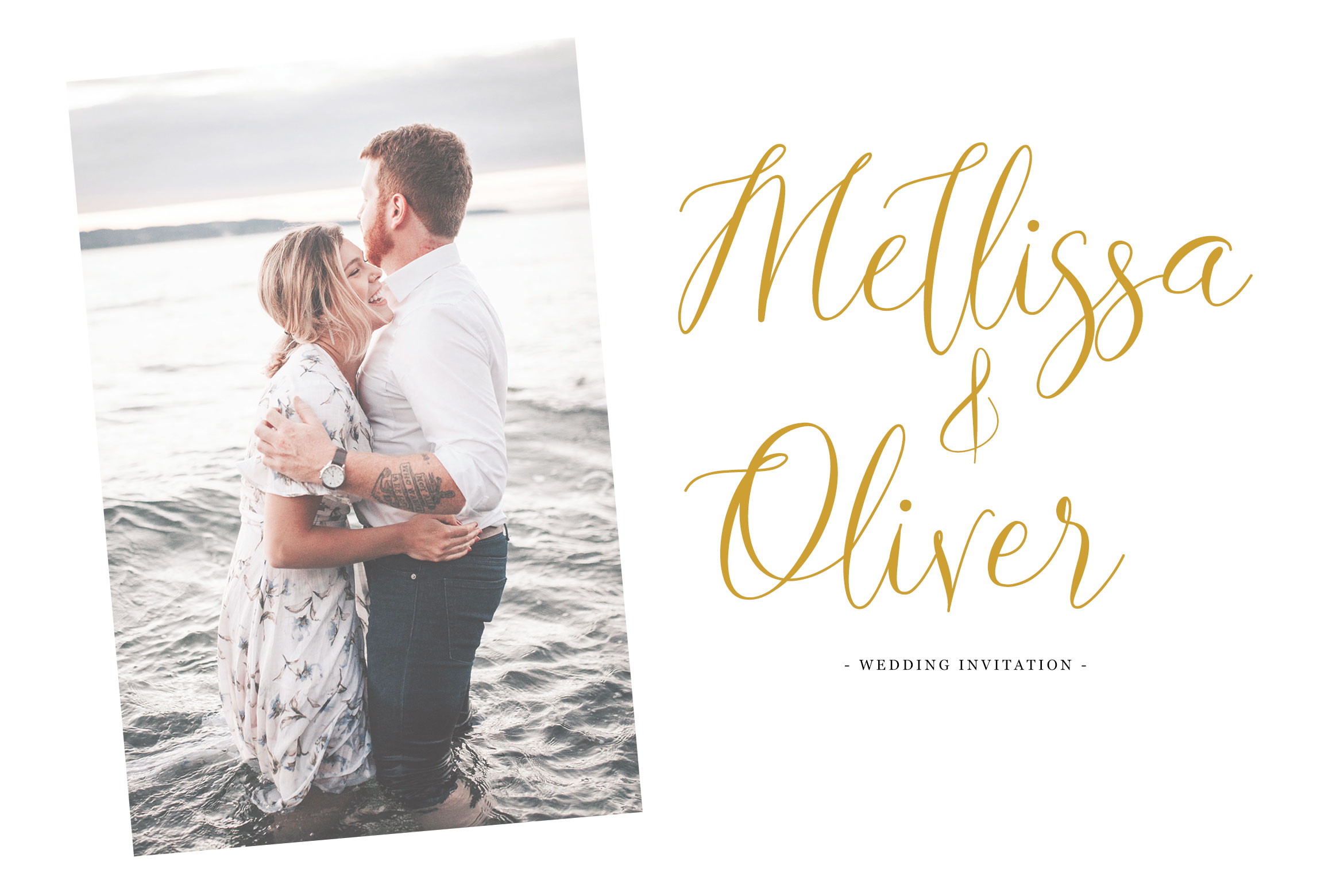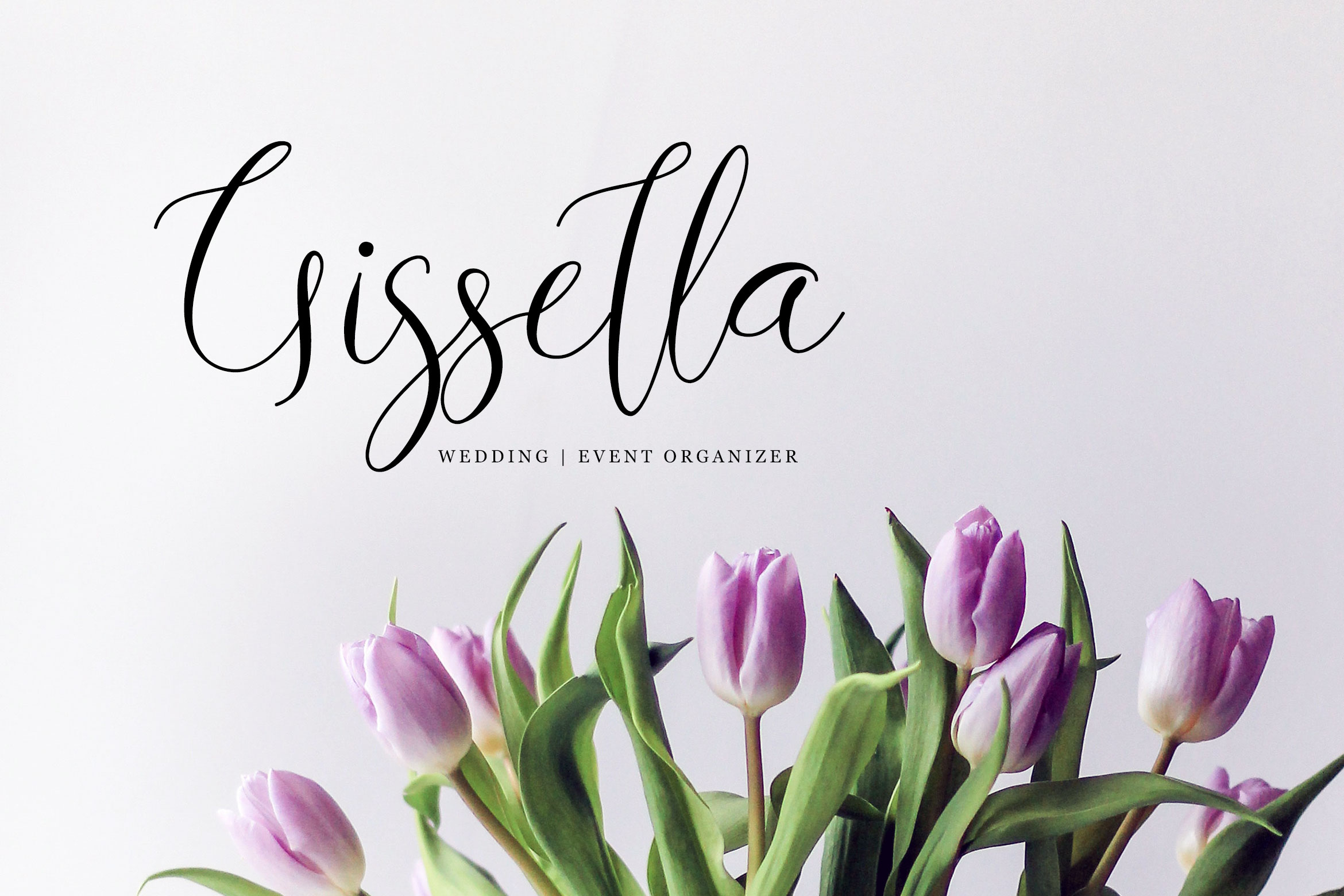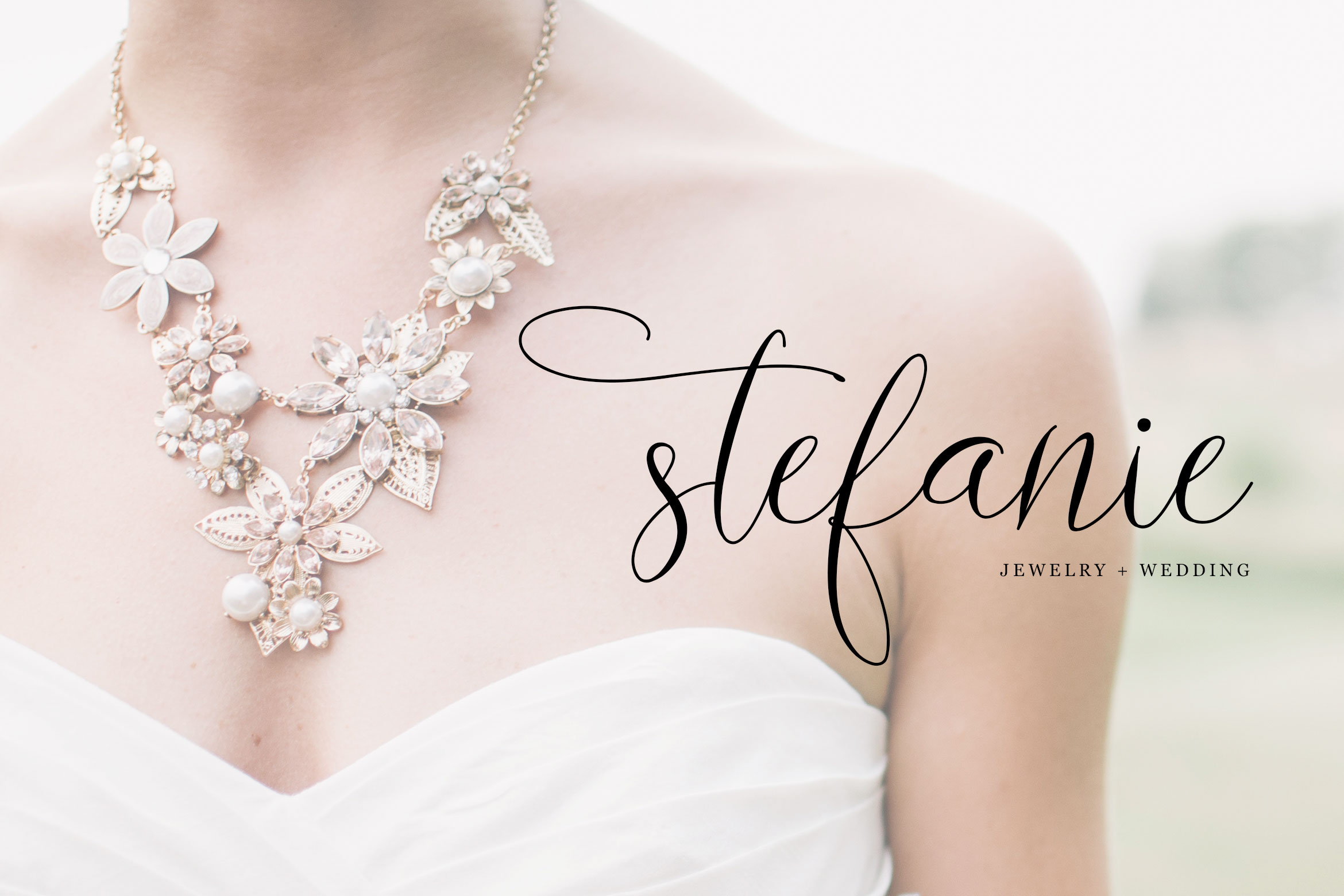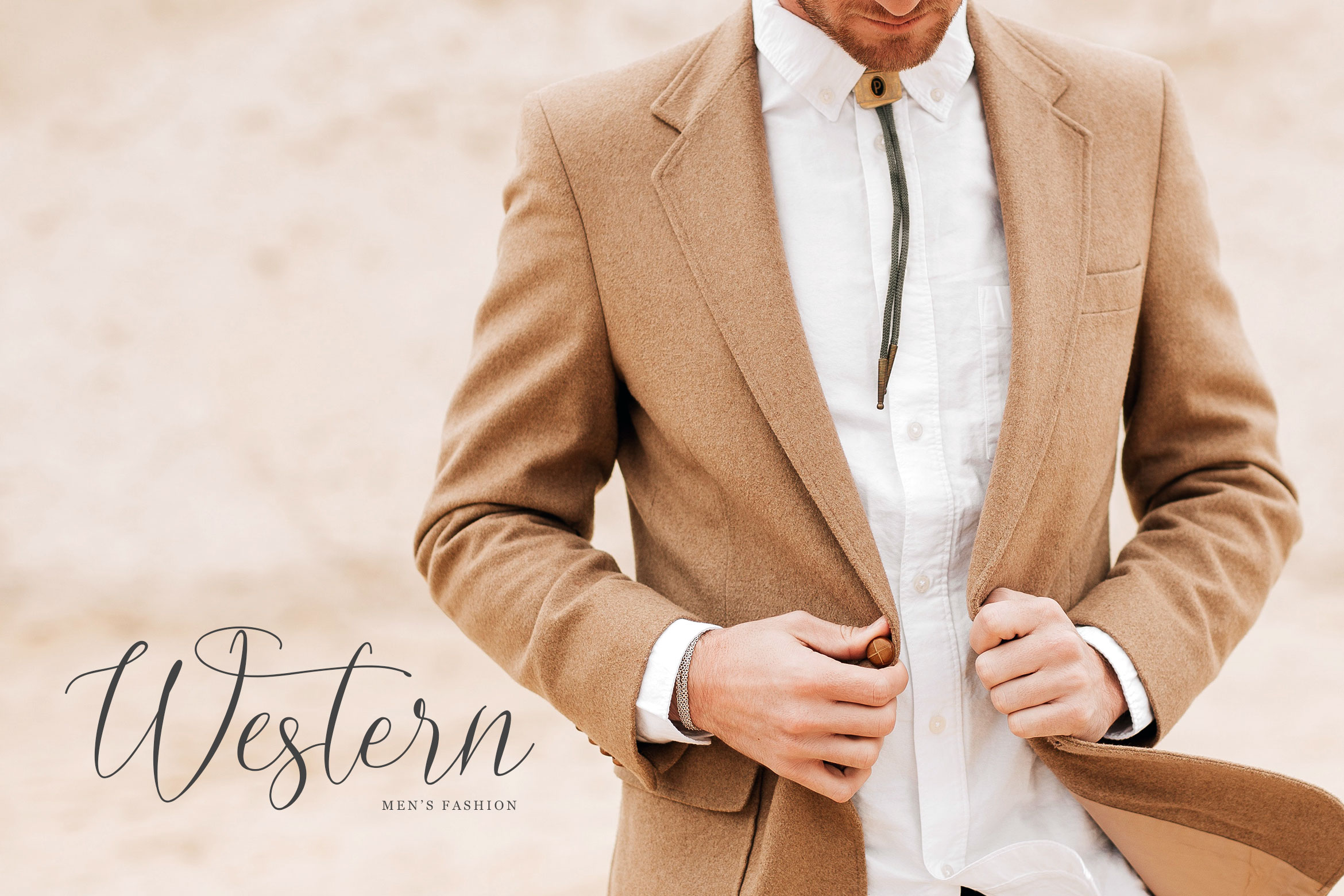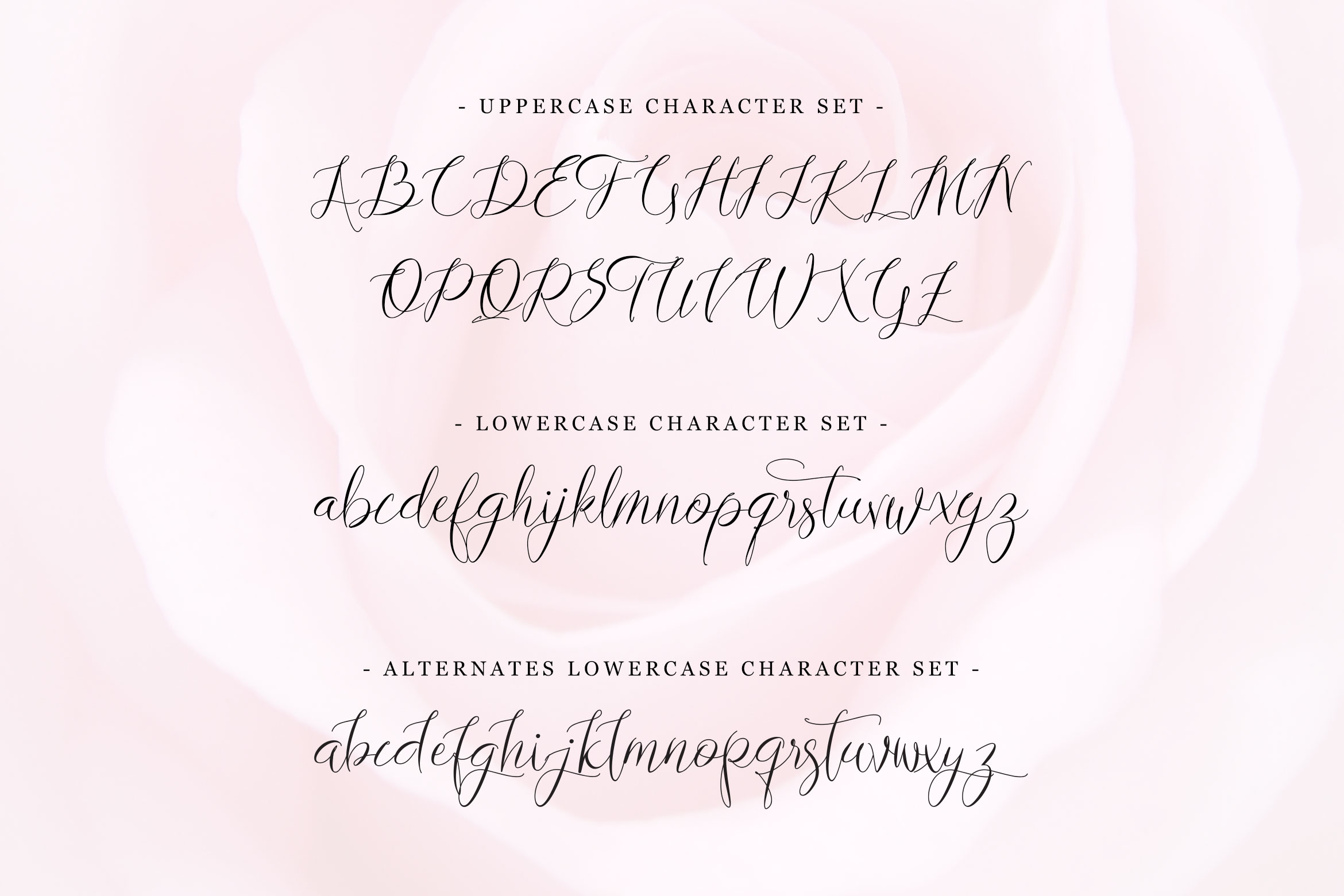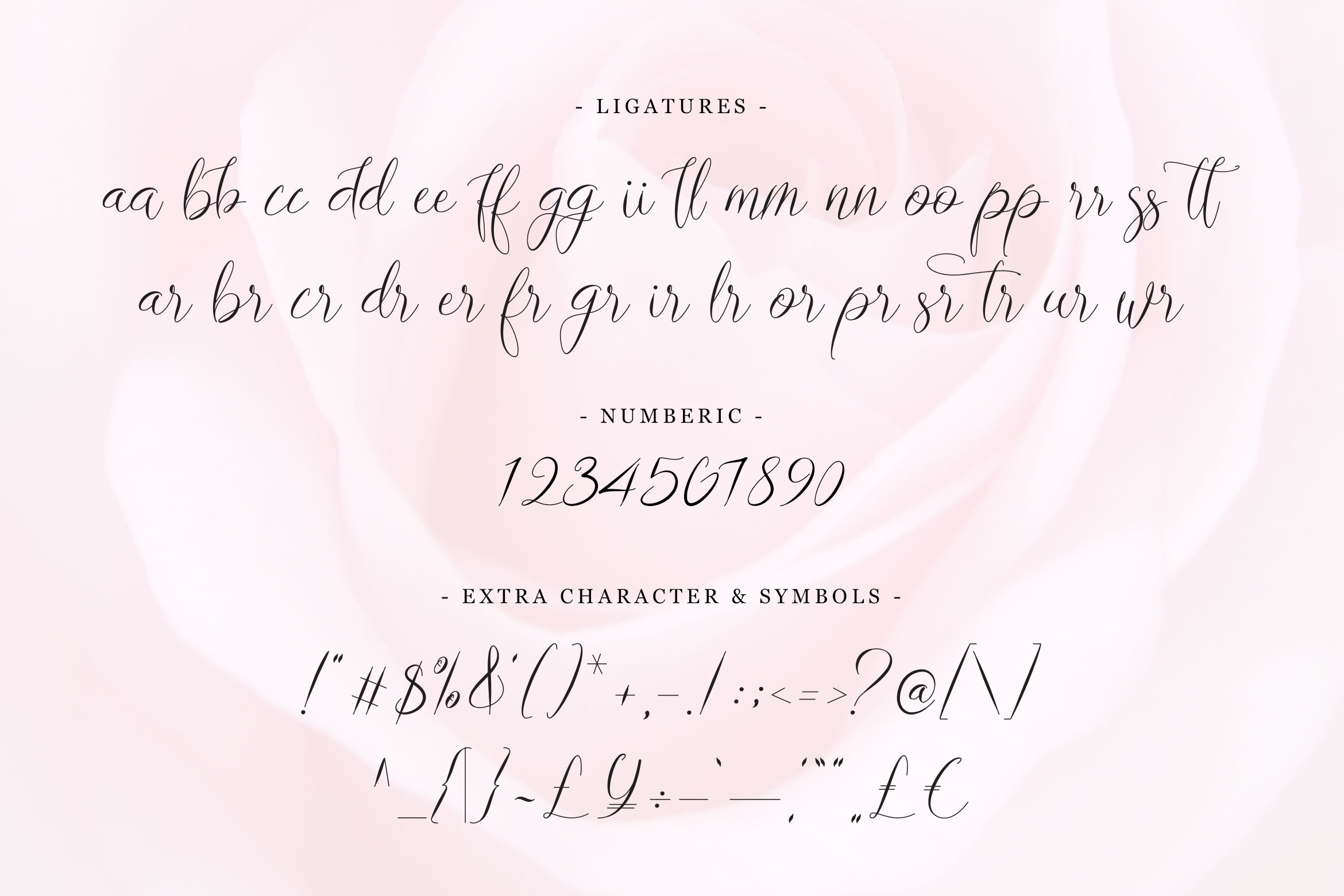
Introduction to Lovestrong Font
Lovestrong is a beautiful, calligraphy font that looks completely at home in invitational and romantically themed projects.
This font comes with stylistic alternate that come in an elegant style .
Key Features of Lovestrong Font